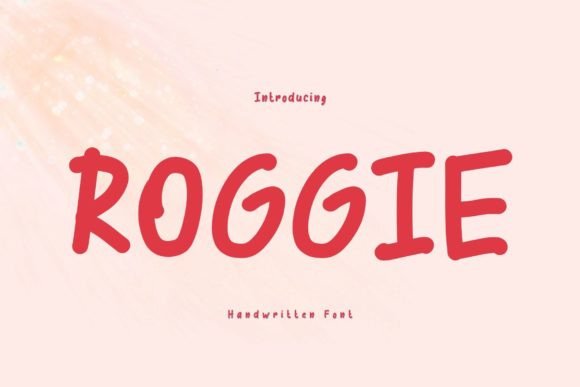
Introducing Roggie Font, the charming handwritten font that adds a touch of delight to all your projects. Its playful personality and authentic style make it the perfect choice for a wide range of designs, from blog posts and logos to branding, ads, and more.
Step into a world of creative freedom with Roggie Font. Let your imagination soar as you craft captivating typography logos that leave a lasting impression. Its whimsical nature adds a touch of uniqueness, making your designs stand out from the crowd.
With Roggie Font as your creative companion, you'll discover a myriad of possibilities. Create eye-catching invitations, heartfelt greeting cards, and personalized planners that reflect your unique style. Its versatility extends to photo albums, decorations, and anything you can dream up.
Roggie Font is not just a font; it's an expression of your creativity. Its delightful handwritten strokes bring warmth and charm to your designs, creating connections that resonate with your audience. Embrace the beauty of imperfection and let your creations shine with authenticity.
So why settle for ordinary when you can have extraordinary? Download Roggie Font today and embark on a creative journey filled with playfulness and joy. Let your designs speak volumes, captivating your audience with every stroke. Unleash your imagination and experience the magic of Roggie Font. Order now and let the transformation begin!